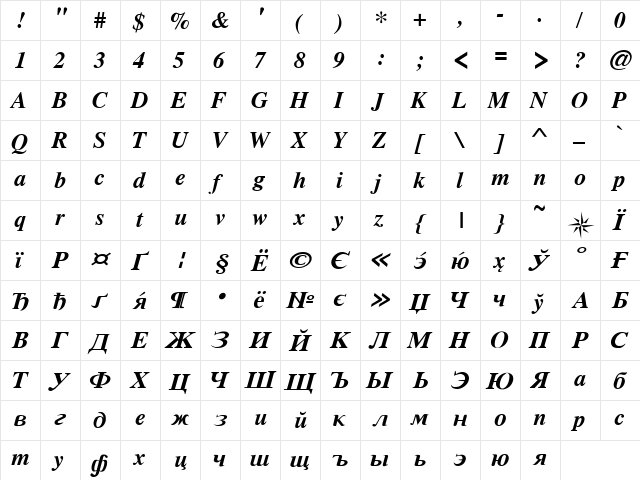
CyrillicTimes BoldItalic
Design Context for CyrillicTimes Typeface
CyrillicTimes offers clean, dependable letterforms without strong stylistic allegiance, making it a practical choice for designers who need flexibility. Its italic angle brings a sense of urgency and motion to the letterforms. Its bold stroke weight gives it real presence on the page.
Pro Tip: Use CyrillicTimes for emphasis, pull quotes, and subheadings where its slanted energy can add rhythm to the layout.